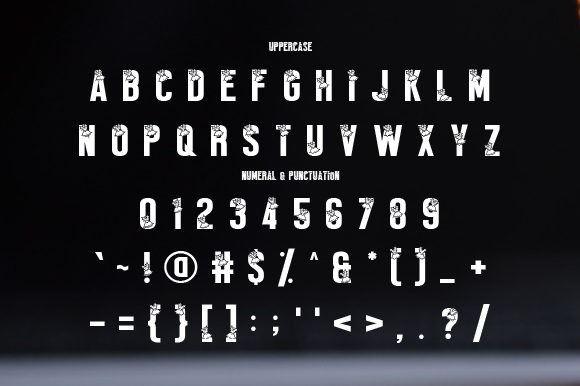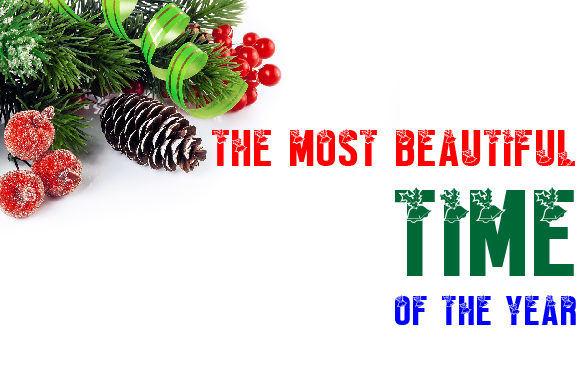
Bell Font: A Fun and Festive Typeface for Your Holiday Designs
Are you looking for a font that captures the spirit of Christmas and adds a touch of whimsy to your designs? Look no further than the Bell Font! This delightful typeface features Christmas bells elements that are sure to bring a smile to anyone’s face. In this article, we’ll take a closer look at the Bell Font, its features, and how you can use it to create amazing holiday designs.
The Bell Font: A Perfect Blend of Fun and Festivity
The Bell Font is a fun and festive typeface that’s perfect for the holiday season. Its unique design features Christmas bells elements that add a playful touch to any design. Whether you’re creating cards, prints, or other holiday-themed projects, this font is sure to be a hit. The Bell Font is also highly versatile, making it suitable for a wide range of design applications.
Key Features of the Bell Font
So, what makes the Bell Font so special? Here are some of its key features:
- Christmas Bells Elements: The Bell Font features Christmas bells elements that add a fun and festive touch to any design.
- Highly Versatile: This font is perfect for a wide range of design applications, including cards, prints, and more.
- Unique Design: The Bell Font’s unique design sets it apart from other fonts, making it a great choice for designers looking to add a touch of personality to their work.
Using the Bell Font in Your Designs
So, how can you use the Bell Font in your designs? Here are a few ideas to get you started:
Create Festive Holiday Cards
The Bell Font is perfect for creating festive holiday cards that are sure to delight your friends and family. Use it to create custom Christmas cards, holiday greeting cards, or even New Year’s Eve invitations.
Design Fun and Colorful Prints
The Bell Font is also great for designing fun and colorful prints. Use it to create custom wrapping paper, holiday-themed posters, or even festive wall art.
Add a Touch of Whimsy to Your Projects
The Bell Font’s playful design makes it perfect for adding a touch of whimsy to your projects. Use it to create custom stickers, holiday-themed labels, or even fun and colorful gift tags.
- Experiment with Different Colors: The Bell Font looks great in a variety of colors, so don’t be afraid to experiment and find the perfect hue for your design.
- Use it with Other Holiday Fonts: The Bell Font pairs well with other holiday fonts, so try combining it with other typefaces to create a unique and festive look.
- Don’t be Afraid to Get Creative: The Bell Font is a versatile typeface that can be used in a wide range of design applications, so don’t be afraid to get creative and try new things.
The Bell Font is a fun and festive typeface that’s perfect for the holiday season. Its unique design features Christmas bells elements that add a playful touch to any design. Whether you’re creating cards, prints, or other holiday-themed projects, this font is sure to be a hit. So why not give it a try and see what amazing designs you can create?
With its highly versatile design, ease of use, and unique features, the Bell Font is a great choice for designers of all skill levels. So go ahead, get creative, and make this holiday season one to remember with the Bell Font!